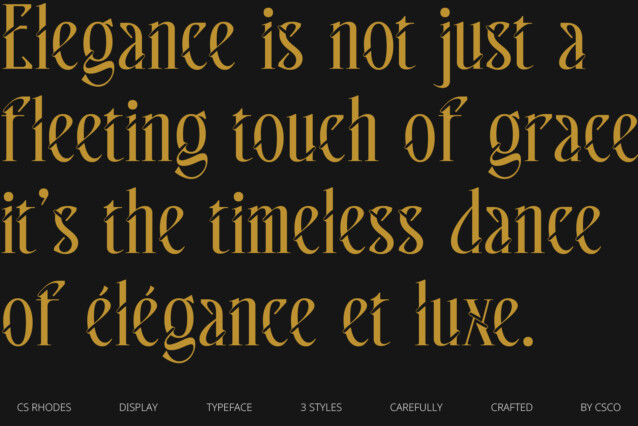
CS Rhodes Font
CS Rhodes Font is a modern serif font that captures the essence of sophistication and prestige. Featuring long, graceful serifs and fine detailing, this font offers a luxurious, high-end feel perfect for projects that demand elegance and refinement. Its classic design, combined with modern sensibilities, creates a seamless balance of tradition and contemporary style, making it ideal for branding, editorial designs, and other premium projects.